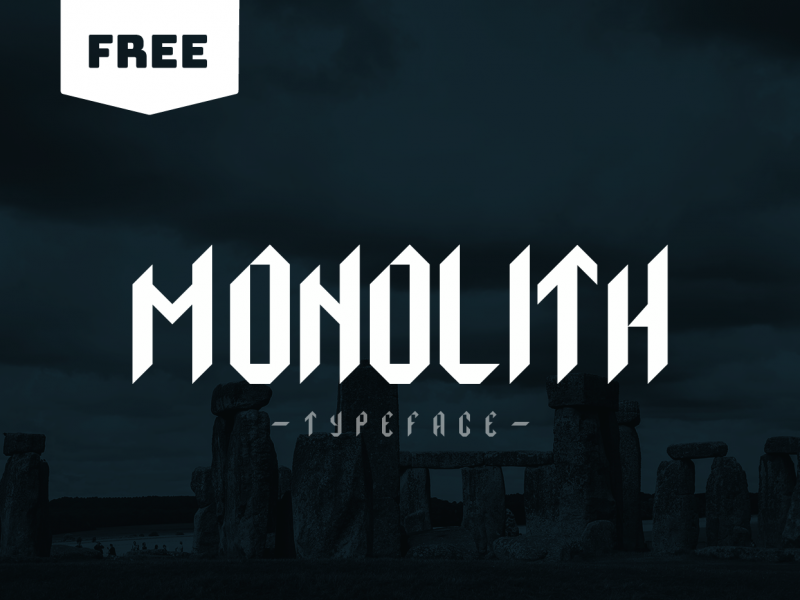
Monolith Display Typeface
Monolith is a free blackletter-inspired geometric display font, available FREE for both personal and commercial use.
Each character of the typeface is built with pillars, which is why I entitled the typeface, Monolith. For those who don’t know, a monolith is a large single upright block of stone, especially one shaped into or serving as a pillar or monument.